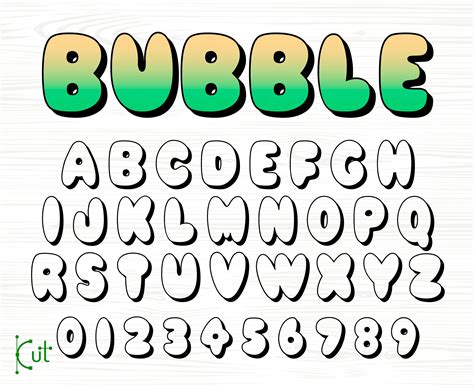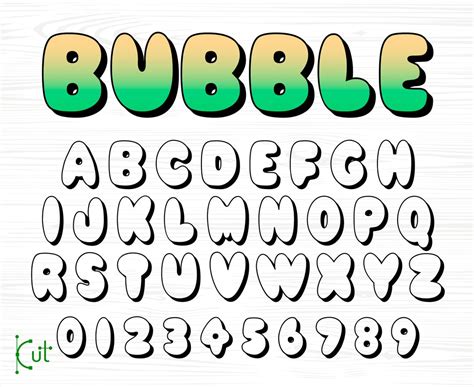
Create Stunning Text with Bubble Font O
Create Stunning Text with Bubble Font
Readers, have you ever wanted to make your text stand out from the crowd with a fun and playful font? Perhaps you're designing a website, creating a social media post, or even just adding a touch of personality to your everyday documents. If so, you're in luck! Bubble font is a versatile and visually appealing choice that can add a whimsical touch to any project.
Think of it as a delightful burst of color and character that can transform ordinary text into something truly eye-catching. I've been studying this magical world of fonts for a long time, and I'm thrilled to share my knowledge with you. Get ready to discover the secrets of bubble font and learn how to use it to create stunning text that will capture attention and leave a lasting impression.
What is Bubble Font?
Bubble font, also known as balloon font or rounded font, is a type of typeface characterized by its rounded, inflated letters. It often evokes a sense of playfulness, joy, and even nostalgia, reminiscent of childhood cartoons and comic books.
The rounded shapes of bubble font create a visually appealing contrast with the sharp edges of traditional fonts, adding a sense of softness and whimsy to any design. It's a popular choice for projects that target a younger audience or convey a fun and lighthearted tone.
Exploring the Wonders of Bubble Font
Bubble font is a versatile tool that can be used to create a wide range of visual effects. It's perfect for adding a touch of personality to websites, logos, greeting cards, social media posts, and even posters. Let's delve deeper into the various ways you can utilize bubble font to elevate your designs.
Using Bubble Font for Websites
Bubble font can add a unique and playful vibe to your website's design. Consider using it for headings, buttons, or even short phrases to highlight specific elements. However, it's crucial to use bubble font sparingly, as excessive use can make your website appear cluttered and unprofessional. Pair it with a more traditional font for the body text to maintain a balanced aesthetic.
Adding Personality to Logos
Bubble font can also be used to create memorable and eye-catching logos. It's particularly effective for brands that target a younger audience or want to convey a sense of fun and energy. When designing a logo with bubble font, choose colors that complement the overall brand identity and ensure the font size is appropriate for the intended application.
Enhancing Greeting Cards
Bubble font is a classic choice for greeting cards, adding a touch of whimsy and festivity. It's perfect for birthdays, holidays, and other special occasions. Experiment with different colors, sizes, and styles of bubble font to create cards that truly stand out and express your heartfelt sentiments.
Spicing Up Social Media Posts
Bubble font can help your social media posts stand out in a crowded feed. Use it for captions, hashtags, or even to create eye-catching graphics. Remember to keep your posts visually appealing by using bubble font strategically and in conjunction with other design elements.
Creating Engaging Posters
Bubble font is an excellent choice for creating posters that grab attention. Whether you're promoting an event or simply showcasing a message, bubble font can help your poster stand out and convey a strong sense of personality. Experiment with different color combinations and background designs to create a poster that truly reflects your message.
Finding the Perfect Bubble Font
The world of fonts is vast and diverse, with numerous bubble fonts available to choose from. Consider the following factors when selecting the perfect bubble font for your project:
Style and Personality
Consider the overall tone and feeling you want to convey with your design. Do you want something playful and whimsical, or more elegant and sophisticated? The style of the bubble font you choose will play a significant role in conveying the desired message.
Legibility
While bubble font is often associated with fun and creativity, it's crucial to select a font that remains legible. Some bubble fonts can be overly stylized, making it difficult to read the text. Choose a font that balances visual appeal with readability, ensuring your message is clear and understandable to your audience.
Versatility
Select a bubble font that works well with various projects. Some bubble fonts are designed for specific purposes, while others are more versatile and can be used across a wider range of applications. Consider the type of projects you're likely to use the font for and choose one that suits your needs.
Tips for Using Bubble Font Effectively
Now that you're familiar with the world of bubble font, let's explore some tips for using it effectively to create designs that truly shine:
Use Bubble Font Sparingly
While bubble font can add a delightful touch to your designs, using it excessively can make them appear cluttered and unprofessional. Use it strategically, incorporating it into headings, buttons, or short phrases to highlight specific elements.
Pair Bubble Font with Other Fonts
Consider using a more traditional font for the body text to create a balanced aesthetic. This approach helps to avoid the feeling of overwhelming your design with too much bubble font.
Experiment with Color
Bubble font can be used in various colors to create a range of visual effects. Experiment with different colors to see how they affect the overall tone and mood of your design. Choose colors that complement the overall aesthetic of your project and effectively convey your message.
Consider the Size of Your Text
The appropriate size of your bubble font will depend on the specific project. Use a larger size for headings and posters while maintaining a smaller size for social media posts and greeting cards. Ensure the text remains legible regardless of the size you choose.
Use Bubble Font in Context
The effectiveness of bubble font depends on the context in which it's used. Consider the audience you're targeting and the overall tone of your project. For example, while bubble font can work well for a children's book, it might not be the best choice for a professional business report.
Utilizing bubble font can bring a playful and engaging touch to your designs, making them stand out from the crowd. Explore different options and experiment with various techniques to discover the best ways to use bubble font to achieve your desired results.